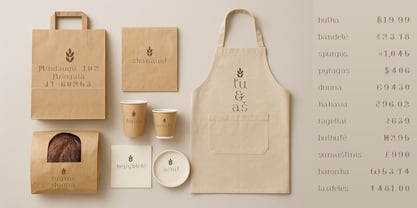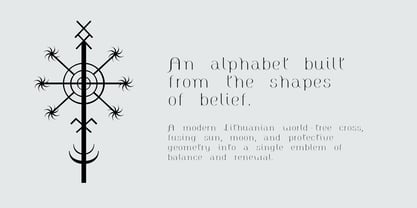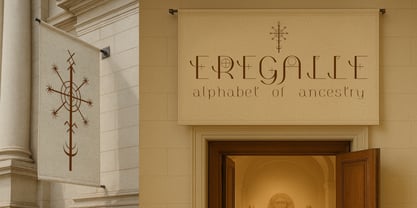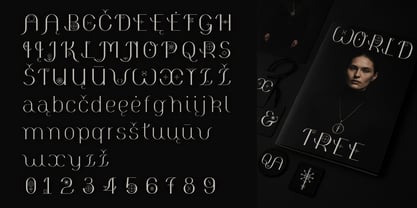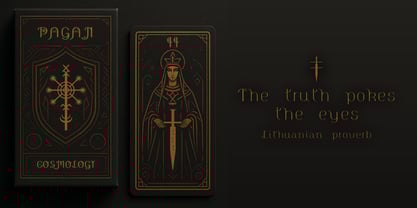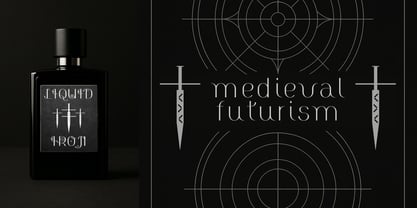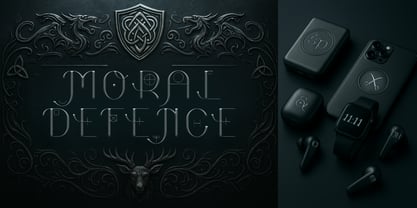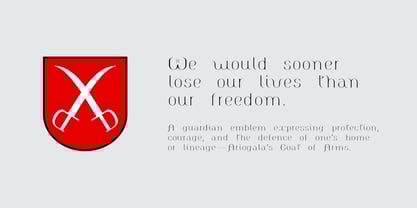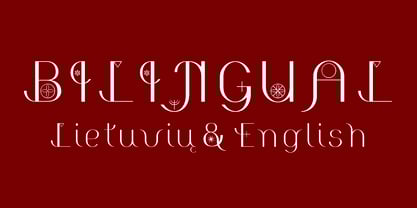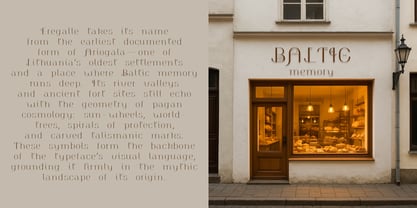
Eregalle
Eregalle takes its name from Eregalle, the earliest documented form of Ariogala—one of Lithuania’s oldest settlements and a place where Baltic memory runs deep. Its river valleys and ancient fort sites still echo with the geometry of pagan cosmology: sun-wheels, world-trees, spirals of protection, and carved talismanic marks. These symbols form the backbone of the typeface’s visual language, grounding it firmly in the mythic landscape of its origin. Yet Eregalle is also shaped by a second heritage. The crossed-blade motifs—while resonant with Baltic notions of protection and guardianship—also mirror the St. George symbolism deeply embedded in English visual culture. In Lithuania, such crossed forms appear on folk crosses and boundary markers; in England, St. George’s sword is an emblem of courage, vigilance, and moral defence. By merging these parallel traditions, the typeface becomes a bridge between two symbolic worlds rather than belonging exclusively to one. That duality is personal. Born in Ariogala and raised in London, I stand at the meeting point of these stories. Eregalle reflects that journey: Lithuanian in its mythic geometry, English in its heraldic echoes, modern in its clarity, and adaptable across both languages. It carries the spirit of ancient ritual carving yet speaks with the refinement of contemporary typographic practice. More than a typeface, Eregalle is a cultural crossing—an alphabet shaped by two homelands, two symbol systems, and the lived experience of moving between them. Special characters include: Crossed swords—a guardian emblem expressing protection, courage, and the defence of one’s home or lineage—Ariogala’s Coat of Arms; Cross—a modern Lithuanian world-tree cross, fusing sun, moon, and protective geometry into a single emblem of balance and renewal. This typeface is designed intentionally for English and Lithuanian, expressing a dual-language identity. The character set is purposefully restricted.
My typefaces explore the shifting boundaries of identity and belonging, drawing inspiration from the places, histories, and social moments that shape how communities form and change. They transform place and cultural memory into letterforms that carry emotional depth and visual resonance, making them ideal for designers seeking to convey rich narratives and connections through typography.